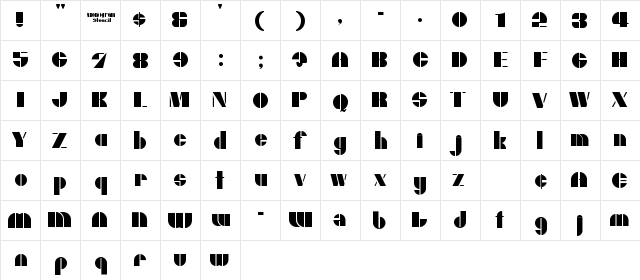
DXS Monogram Stencil Regular
Design Context for DXS Monogram Stencil Typeface
DXS Monogram Stencil borrows the utilitarian aesthetic of stencil lettering, with its characteristic cutaways and no-frills construction lending an industrial edge.
Ideal for industrial branding, streetwear, military-adjacent aesthetics, and urban signage projects.
Pro Tip: Pair DXS Monogram Stencil with raw, utilitarian design elements — exposed concrete textures, flat colour, and minimal ornamentation suit it well.